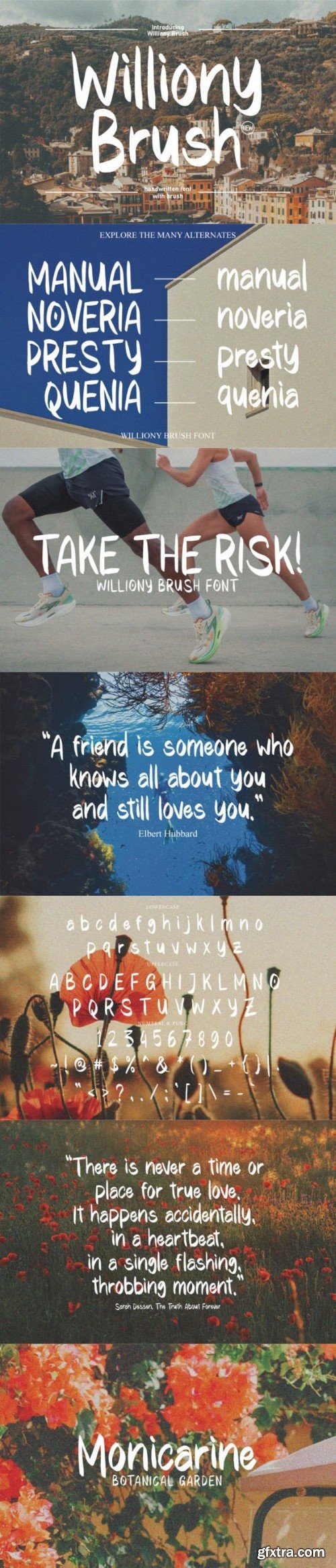
威尔离子刷字体
Williony Brush with a handmade Signature style, decorative characters and a dancing baseline! So beautiful on invitation like greeting cards, branding materials, business cards, quotes, posters, and more!!